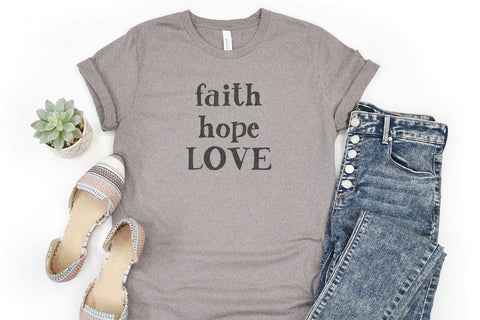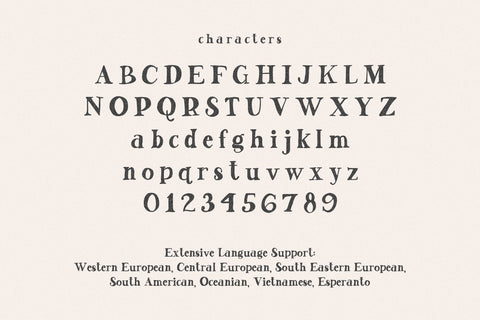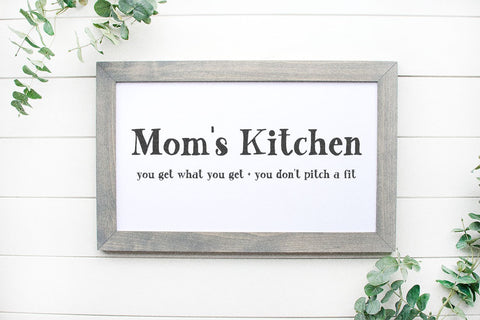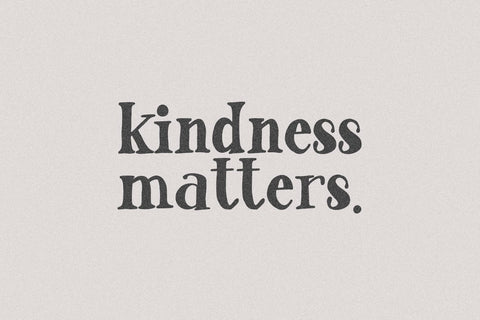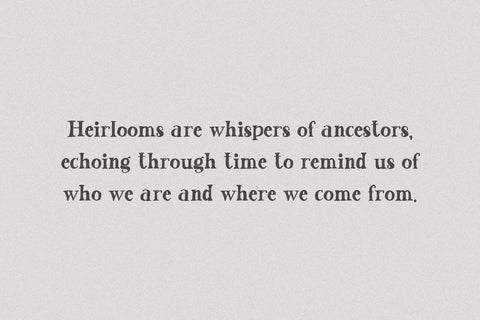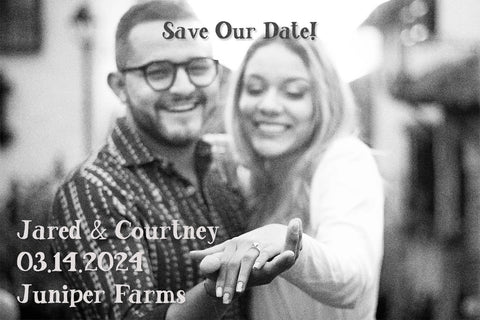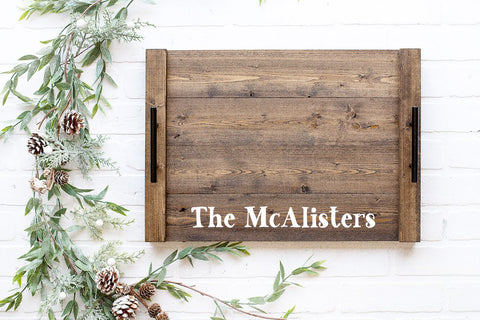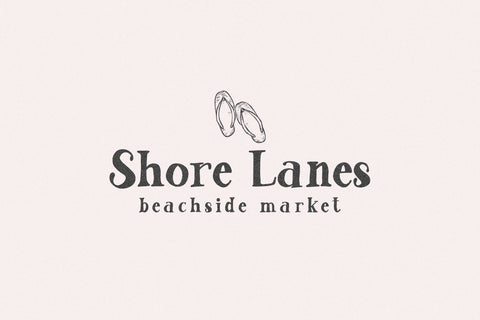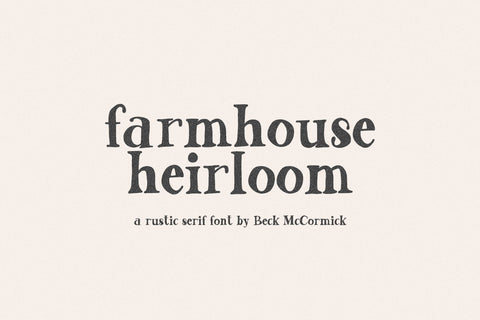
Farmhouse Heirloom Serif
Farmhouse Heirloom is a rustic, handdrawn serif font with the perfect amount of shabby imperfection to bring character to your next project. Farmhouse Heirloom is a perfect fit for your farmhouse home decor projects, your Cricut machine, logo & branding projects, marketing materials, social media graphics, & more.